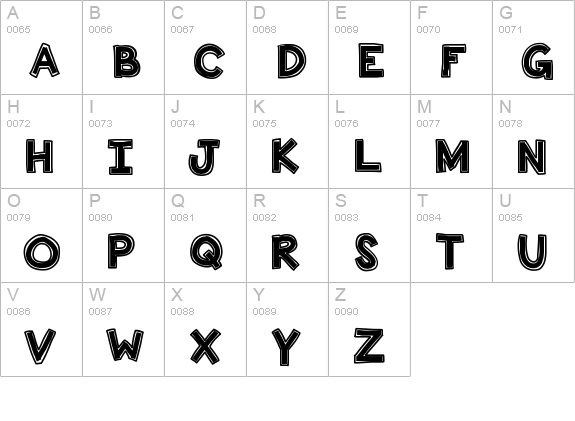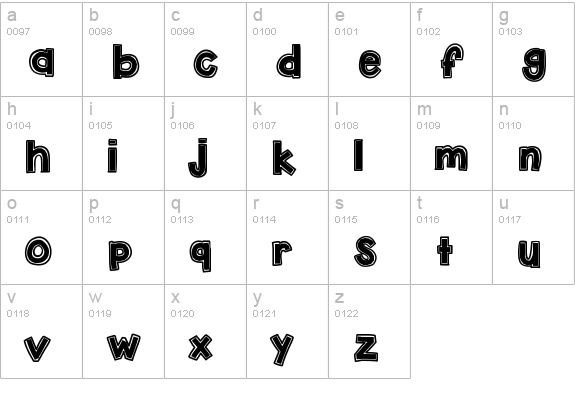
Introducing KBDunkTank font, a captivating and eye-catching typeface that will surely make a splash in your design projects. This font exudes a playful and energetic vibe, perfect for adding a touch of fun and excitement to any creative endeavor. KBDunkTank features bold and chunky letterforms with a unique twist. Each character is expertly crafted with a dynamic and fluid design, creating a sense of movement and energy. Its distinctive curves and angles give it a modern and contemporary feel, making it ideal for a wide range of applications. Whether you're designing a logo, creating eye-catching headlines, or crafting attention-grabbing social media posts, KBDunkTank will effortlessly stand out from the crowd. Its versatility allows it to be used in both digital and print mediums, ensuring your message is conveyed with impact and style. What's even better is that KBDunkTank is absolutely free! Yes, you heard it right. This incredible font is freely available to download at FontsMarket.com, the go-to destination for font enthusiasts and designers alike. Now, you can unleash your creativity without any limitations, as this font can be used for personal and commercial projects without any hassle or cost. So, dive into the world of KBDunkTank and let your imagination run wild. Download this font today and witness how it effortlessly transforms your designs into stunning and memorable works of art. Don't miss out on this amazing opportunity to add a touch of brilliance and vibrancy to your projects. Get KBDunkTank now and make a splash in the design world!